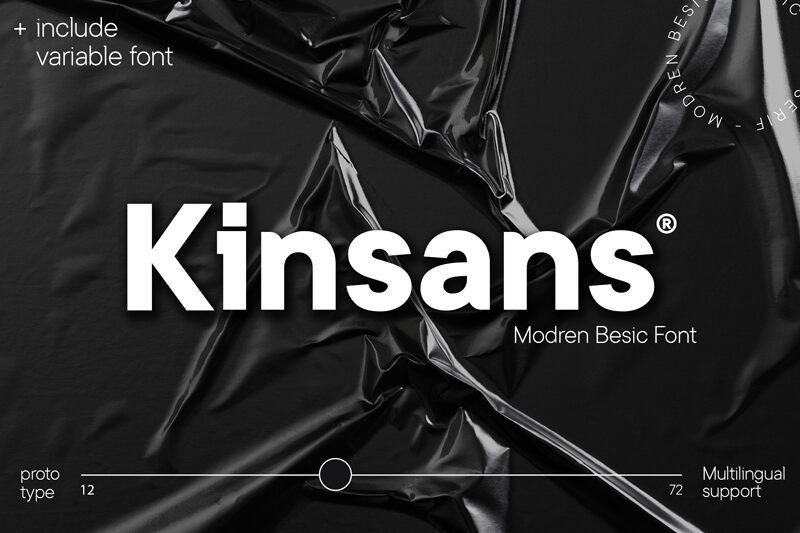
Kinetic Bold
Introducing Kinetic Bold by Ryan Rivaldovierra - a classic sans serif font family with a bold weight. Ideal for any project requiring an impactful and dynamic presence, from posters to product packaging. Get creative with Kinetic Bold today!